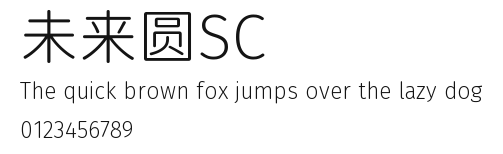
未来圆SC Preview
• Font Name: 未来圆SC
• Font Style: Light
• Font ID: 未来圆SC Light:Version 1.00
• Full Font Name: 未来圆SC Light
• Character Count: 37016
• Designer: shiluwords
About 未来圆SC.ttf
未来圆SC.ttf is a modern, elegant sans-serif font designed for ultimate readability and visual harmony. Perfect for branding, headlines, web design, and print materials.